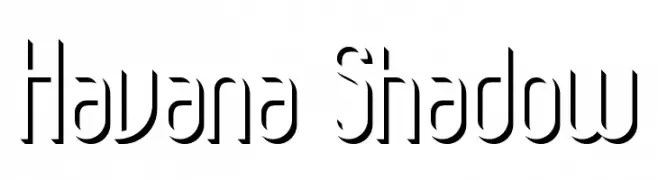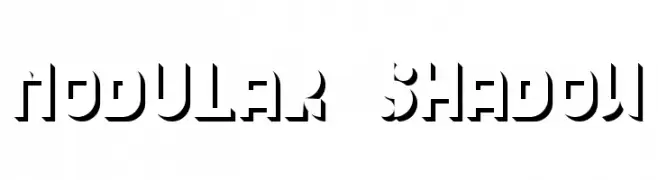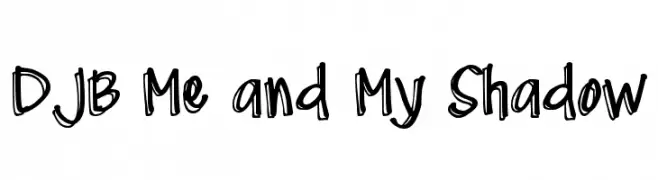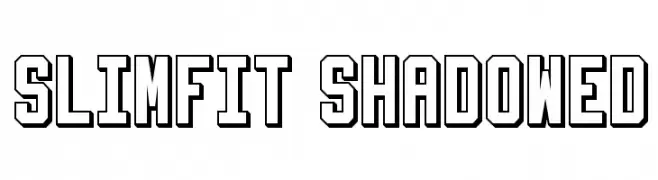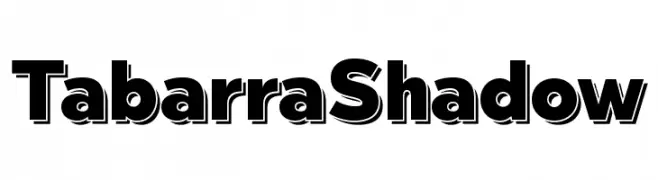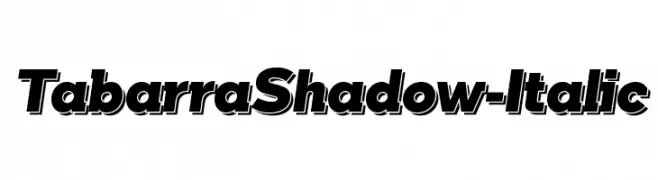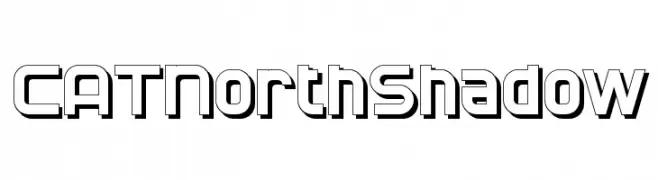
A modern, shadowed font with tall, narrow characters and a sleek design.
A bold, geometric font with a unique shadow effect for a 3D appearance.
A bold, shadowed handwritten font with a playful and informal style.
A bold, geometric font with a three-dimensional shadow effect.
A bold, decorative font with a shadow effect, offering a modern and classic look.
A bold, shadowed font with a modern and dynamic appearance.